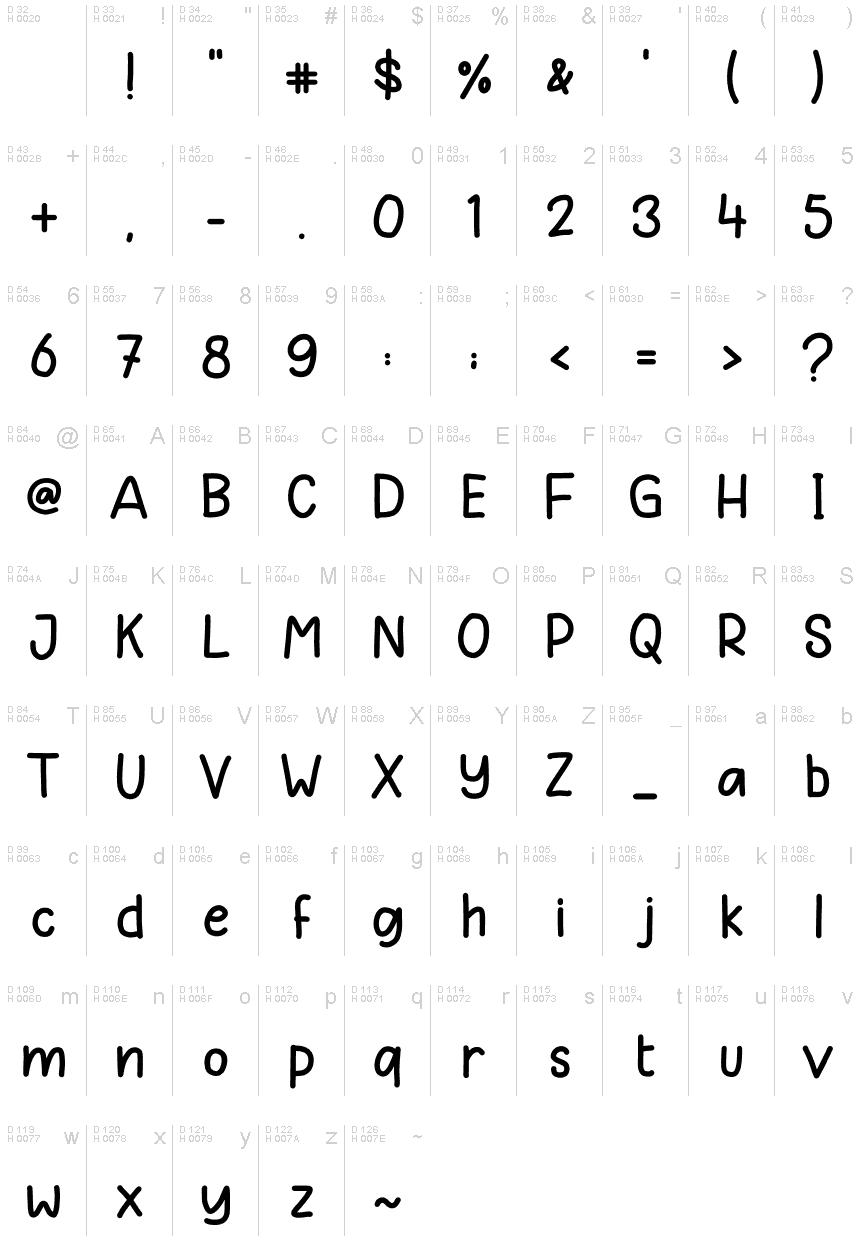
Christmas School Regular
Embrace the festive charm with Christmas School, a delightful creation by Letterafa Studio. This cute handwritten font captures the essence of holiday cheer, making it an irresistible choice for designers seeking to sprinkle a touch of warmth and nostalgia in their projects. With its playful curves and whimsical lines, Christmas School embodies the joyous spirit of handwritten notes passed between friends on a wintery school day.
Ideal for greeting cards, seasonal marketing campaigns, or event invitations, this font is versatile enough to elevate any creative endeavour. Its endearing appearance conjures images of cozy winter evenings and heartfelt messages penned by a flickering fireside. Let Christmas School be the secret ingredient that turns your designs into cherished memories.